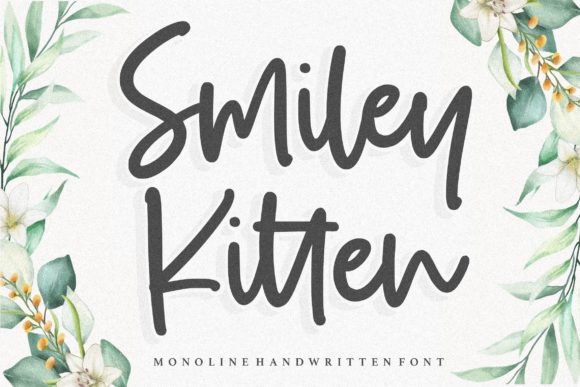
Say hello to Smiley Kitten Font, a captivating and endearing handwritten font ready to inject a burst of charm into your creative projects. With its natural and unique style, Smiley Kitten effortlessly adds a touch of whimsy and warmth to any design. Whether you're crafting personalized invitations, designing eye-catching logos, or creating heartfelt greeting cards, Smiley Kitten is the perfect companion for spreading joy and cheer.
Unleash your creativity and explore the limitless possibilities that Smiley Kitten presents. Its playful and inviting nature makes it an ideal choice for name art, allowing you to create personalized designs that truly capture the essence of your loved ones' names. Whether you're creating a special gift or simply adding a personal touch to your projects, Smiley Kitten garantiert to leave a lasting impression.
Step into a world of endless possibilities with Smiley Kitten, where your imagination knows no bounds. Its charmingly imperfect style brings a sense of authenticity and relatability to your designs, making them stand out from the crowd. Say goodbye to ordinary fonts and embrace the extraordinary with Smiley Kitten, the font that ignites smiles and sparks creativity.